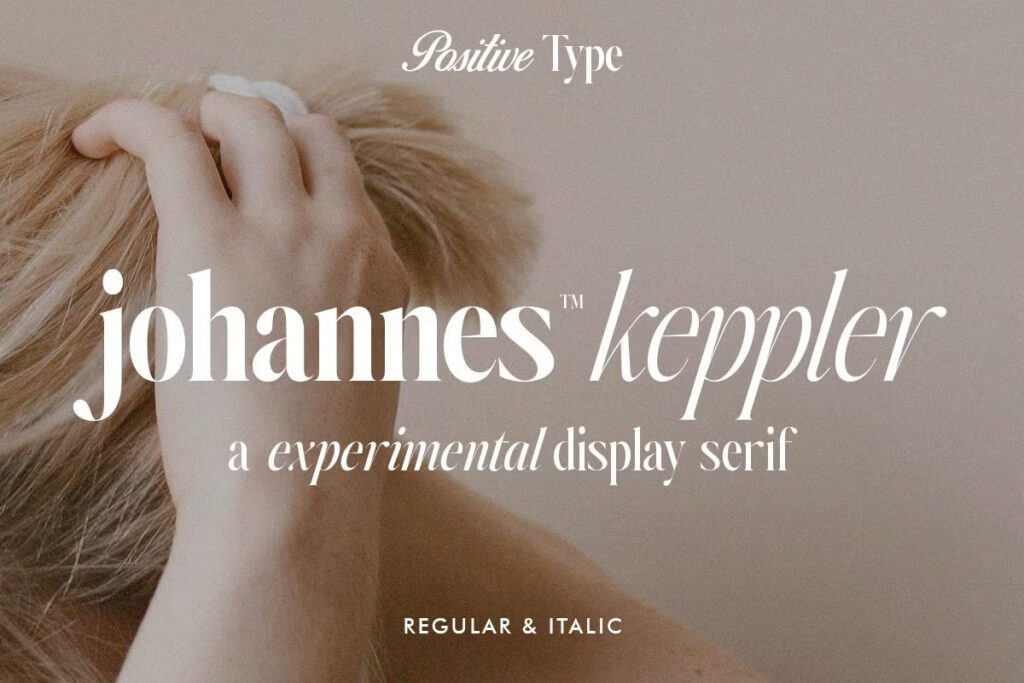
Johannes Keppler Font Family – A Modern Serif with Elegant Versatility
Introducing the Johannes Keppler Font Family, a unique and versatile serif typeface designed for modern professionals and creatives. With 18 fonts ranging from Thin to Black and a stunning array of Italics, Johannes Keppler offers immense flexibility for various design projects. Whether you’re working on editorial layouts, branding, or digital designs, this font adds a polished and professional touch.
Why Choose Johannes Keppler?
Modern Serif DesignJohannes Keppler blends traditional serif elegance with modern flair. Its slender letterforms, natural curves, and swollen stems evolve beautifully as the weight increases, giving each variation a unique character. This makes it perfect for designs that need both a classic and contemporary feel.
Wide Range of WeightsWith 18 styles, Johannes Keppler offers a full spectrum of weights from Thin to Black. This allows you to create varied designs, from subtle, refined compositions to bold, impactful statements.
Beautiful ItalicsEvery weight comes with a gorgeous italic version, enhancing the versatility of this font family and adding a graceful flow to your typography.
Key Features of Johannes Keppler
18 Styles: From Thin to Black, with corresponding italics for each weight.
Variable Font Options: Includes both Variable Regular and Italic versions for seamless customization.
Beautiful Letterforms: Natural curves, elegant transitions, and distinctive details that evolve with weight.
Excellent Language Support: Suitable for a wide array of languages, making Johannes Keppler a global asset for designers.
Versatile Usage: Ideal for editorial layouts, branding, logos, web design, and marketing materials.
Ideal Uses for Johannes Keppler
Branding and Logos: Perfect for crafting memorable and professional brand identities.
Editorial and Print: Johannes Keppler’s range of weights makes it great for headlines, subheadings, and body text in magazines and books.
Web Design: Whether used in web banners, blogs, or landing pages, Johannes Keppler offers a clean and elegant type solution.
Professional Presentations: The font’s distinct yet professional look adds authority and elegance to your presentation slides.
Make your designs stand out with Johannes Keppler, a modern serif font that offers both sophistication and flexibility.